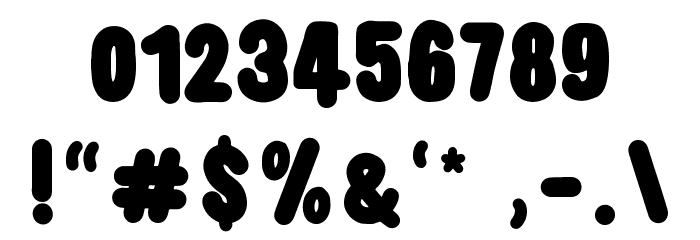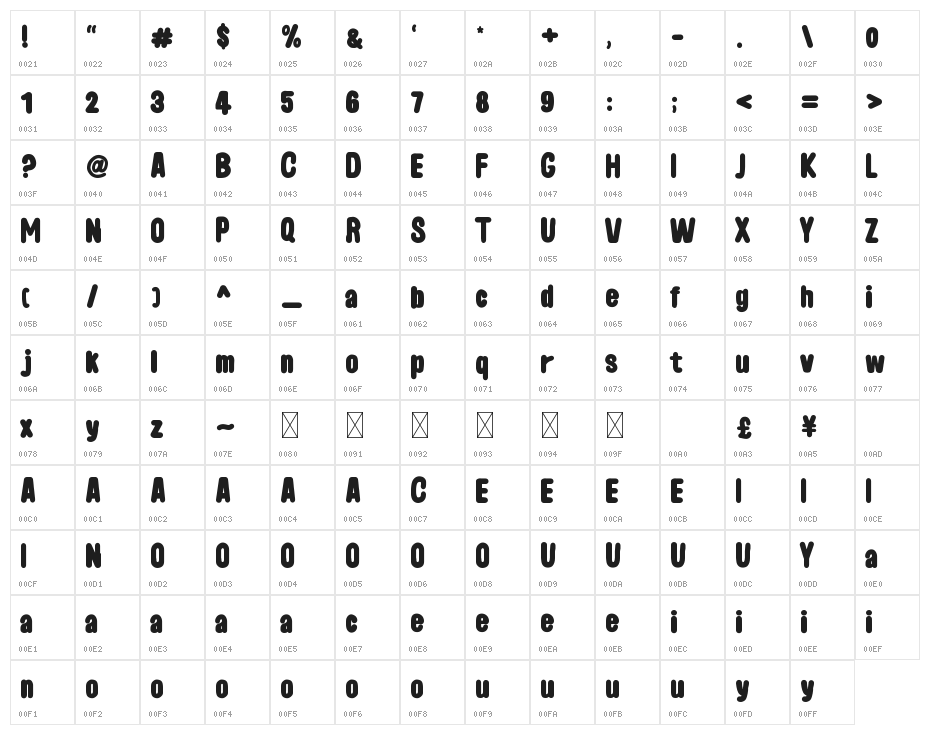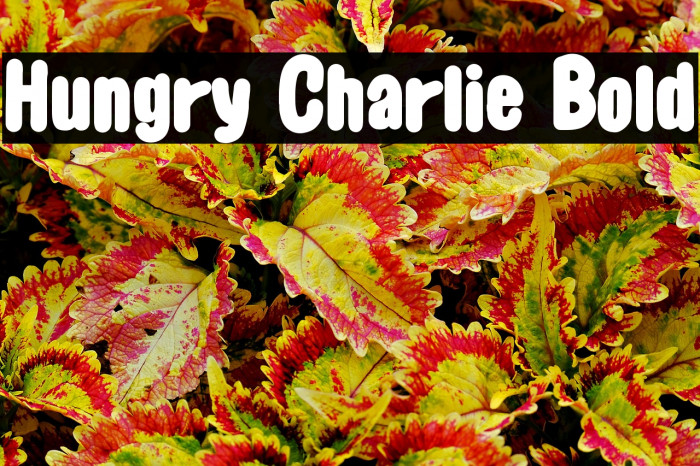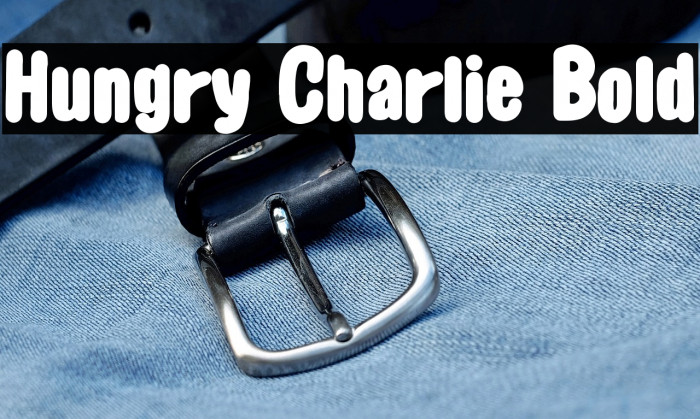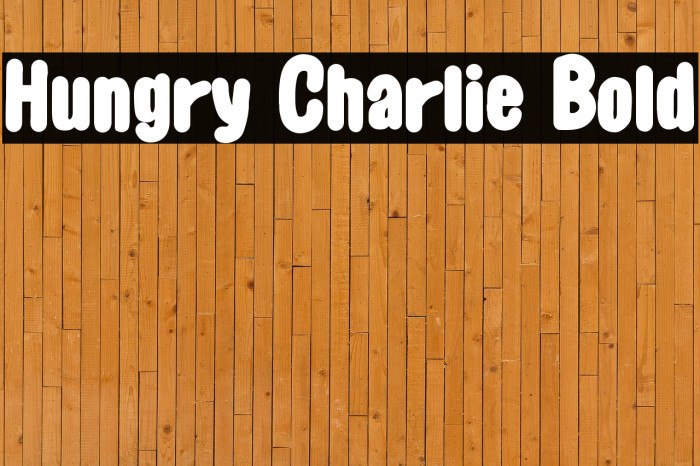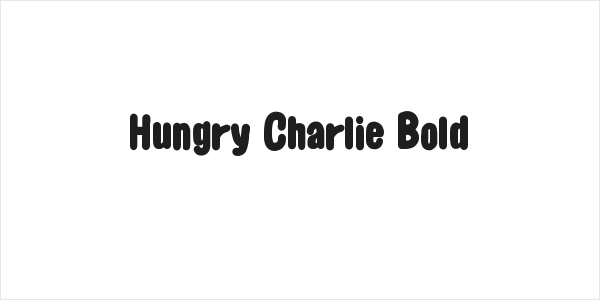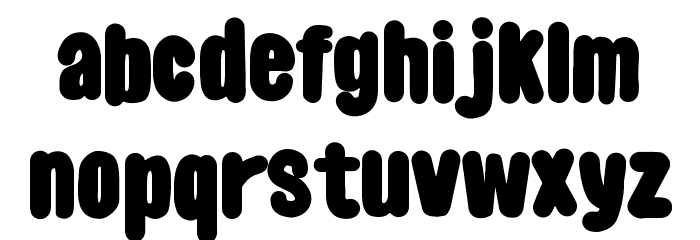
Hungry Charlie Bold Font
Hungry Charlie Bold Description
This font features a bold and playful design, characterized by its thick, rounded letterforms that convey a sense of fun and approachability. The letters are uniformly bold, with a consistent stroke width that gives the font a cohesive and solid appearance. The rounded edges soften the overall look, making it suitable for informal and friendly applications. The numerals and special characters maintain the same playful style, ensuring a harmonious look across all text elements. This font is ideal for projects that require a touch of whimsy and boldness, such as children's books, playful branding, and eye-catching headlines.
| Proposed Projects | Ideal for children's books, playful branding, and eye-catching headlines. |